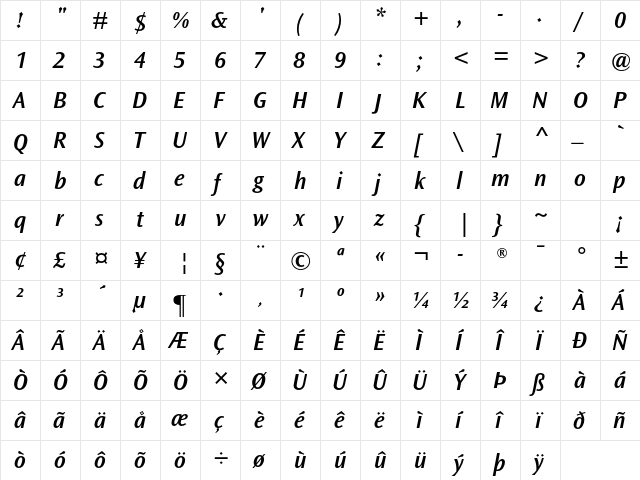
Ocean Sans MT Pro SemiBold Ita
| Designer | Chong Wah |
Design Context for Ocean Sans MT Pro Typeface
Ocean Sans MT Pro is a composed and adaptable typeface that performs quietly and consistently across a wide range of design contexts. Its italic angle brings a sense of urgency and motion to the letterforms. Its bold stroke weight gives it real presence on the page.
Pro Tip: Try Ocean Sans MT Pro for annotation and caption copy alongside an upright companion — the contrast in angle creates a dynamic but ordered typographic system.